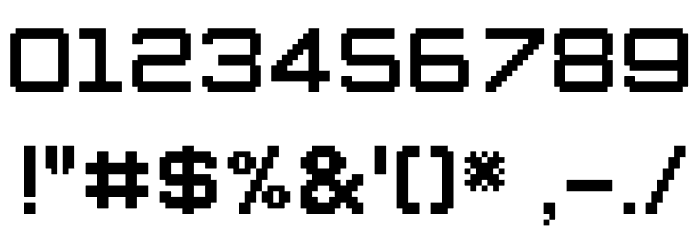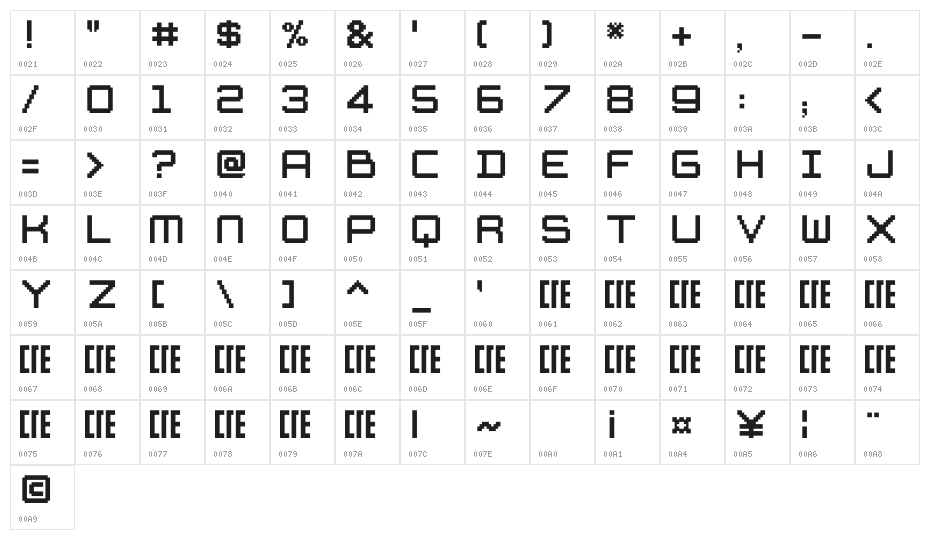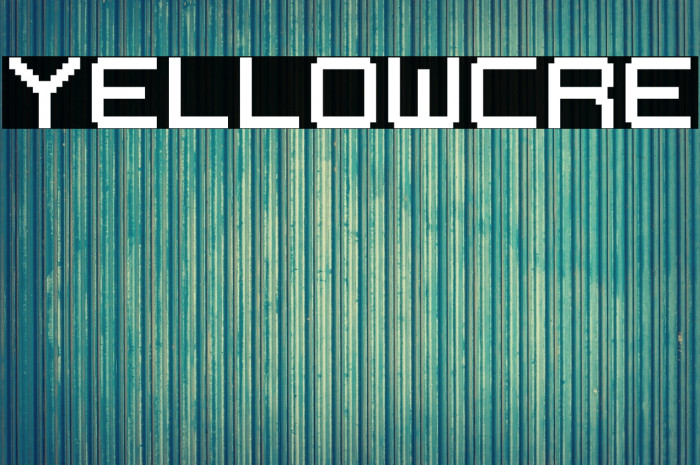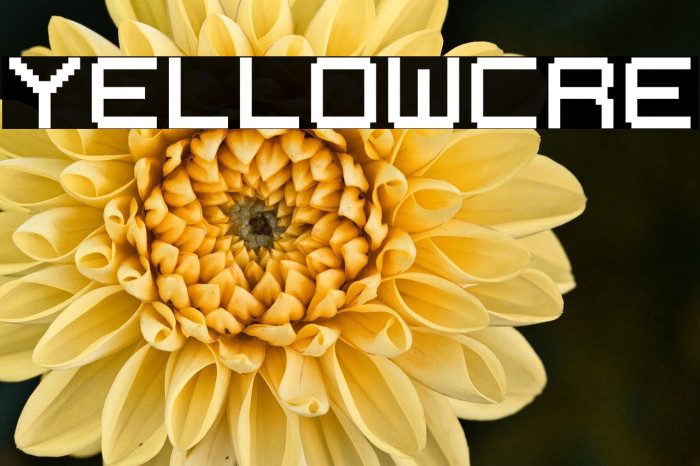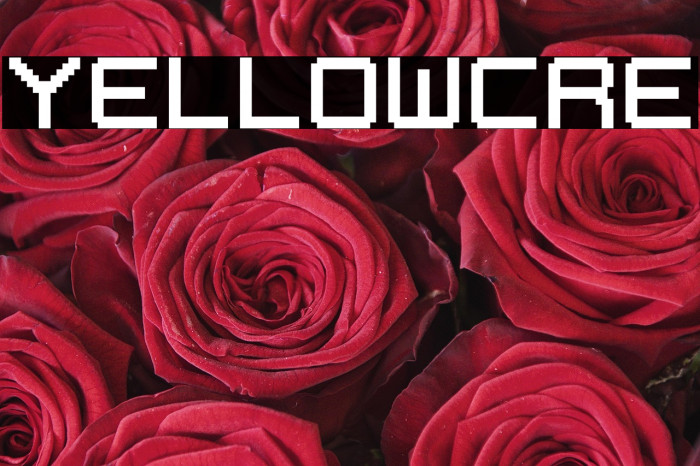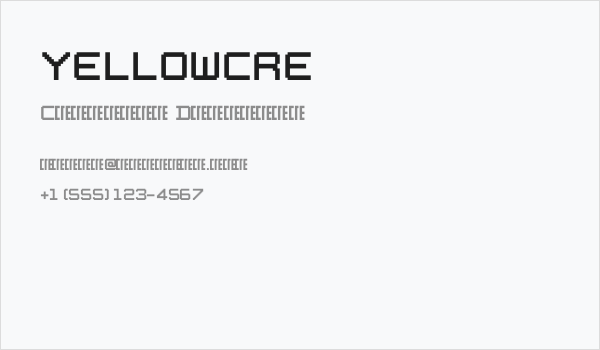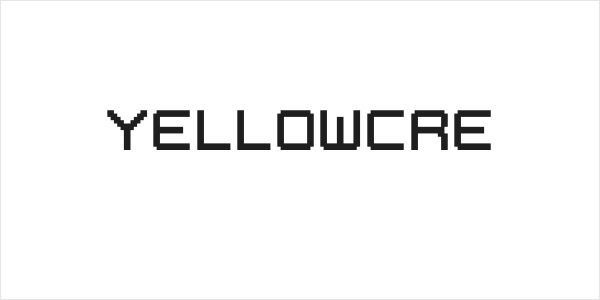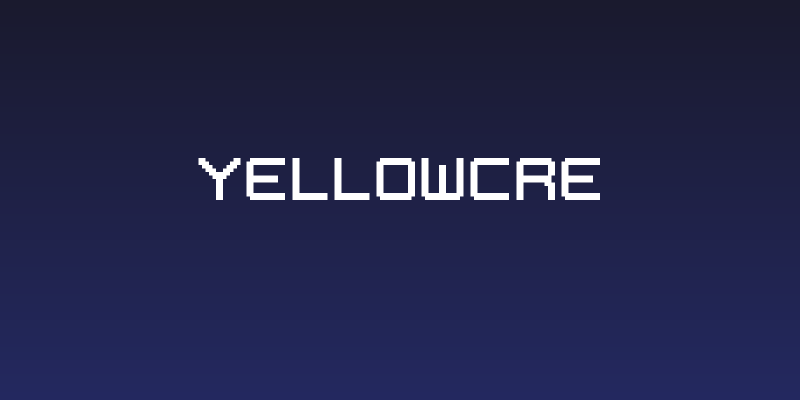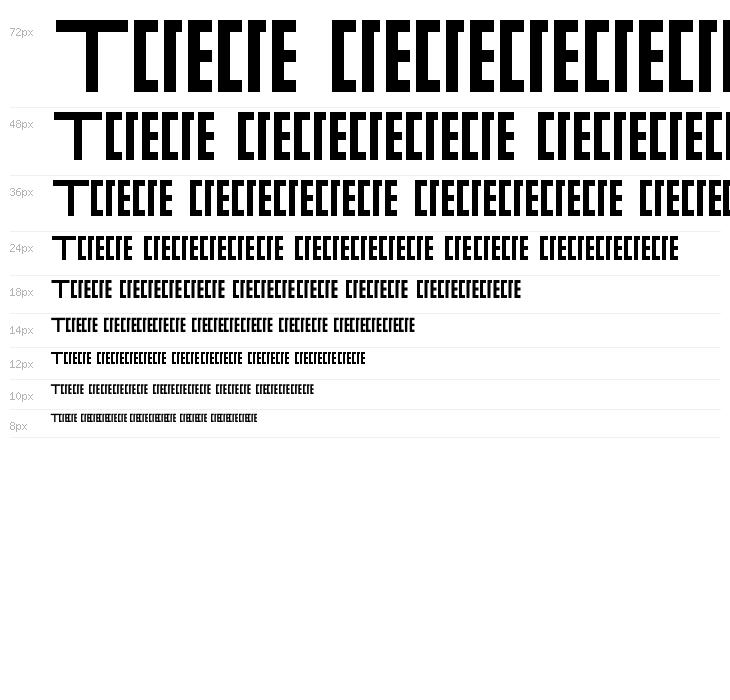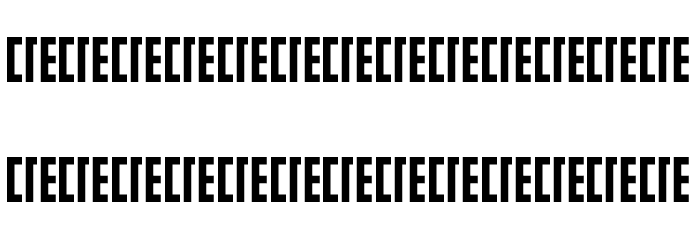
YELLOWCRE Font
YELLOWCRE Description
This font features a geometric, blocky design with a distinctly modern and digital aesthetic. The uppercase letters are uniform in height, with sharp angles and straight lines that give it a futuristic feel. The lowercase letters maintain the same geometric style, ensuring consistency throughout. Numbers are similarly designed, with a clear, easy-to-read structure. Special characters are bold and match the overall style, making them suitable for digital displays or tech-related projects. The font's uniformity and clarity make it ideal for use in environments where readability is crucial.
| Proposed Projects | Ideal for digital displays, tech branding, video game interfaces, and futuristic designs. |